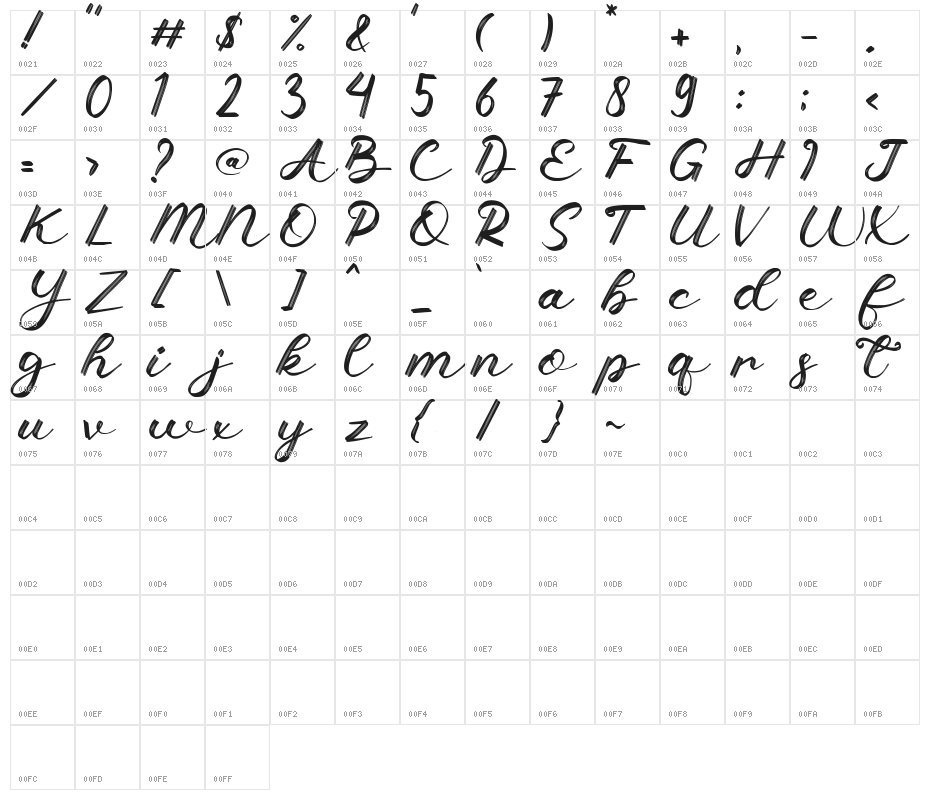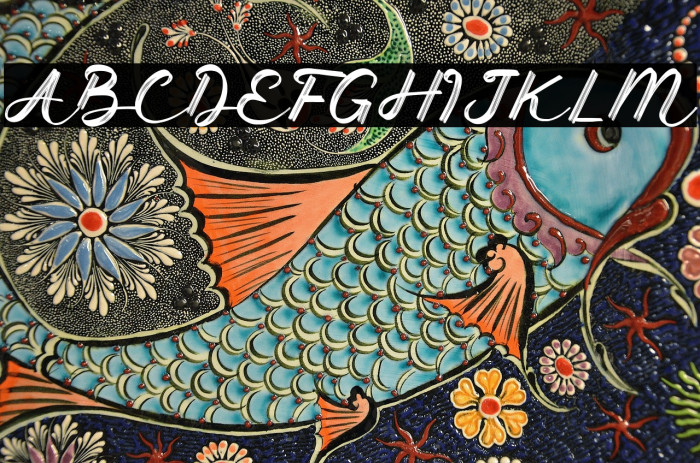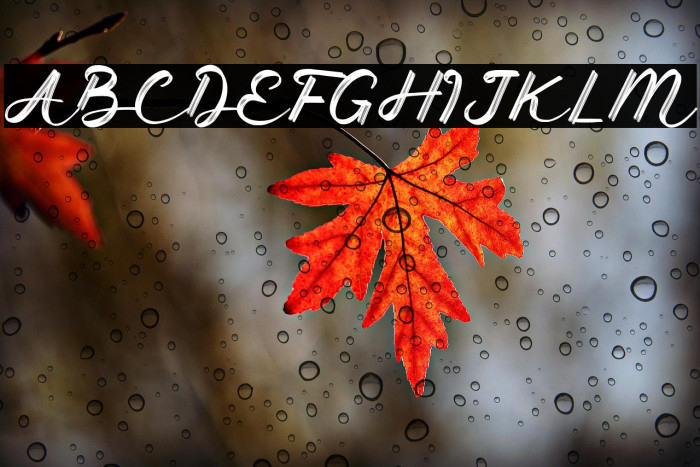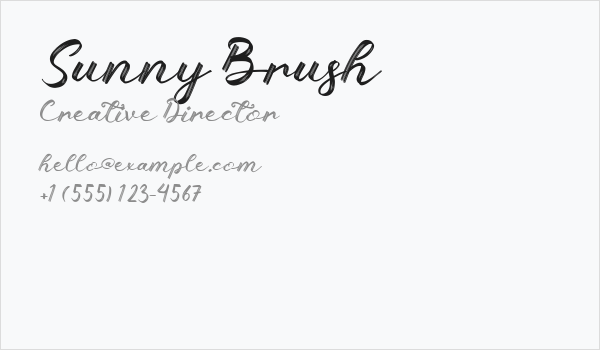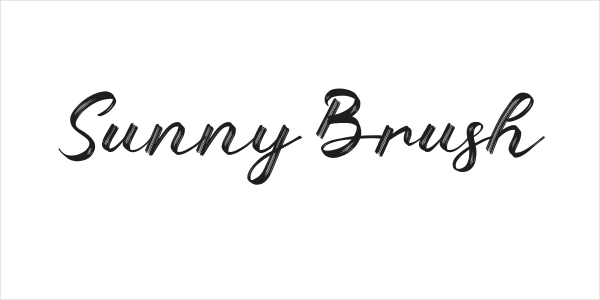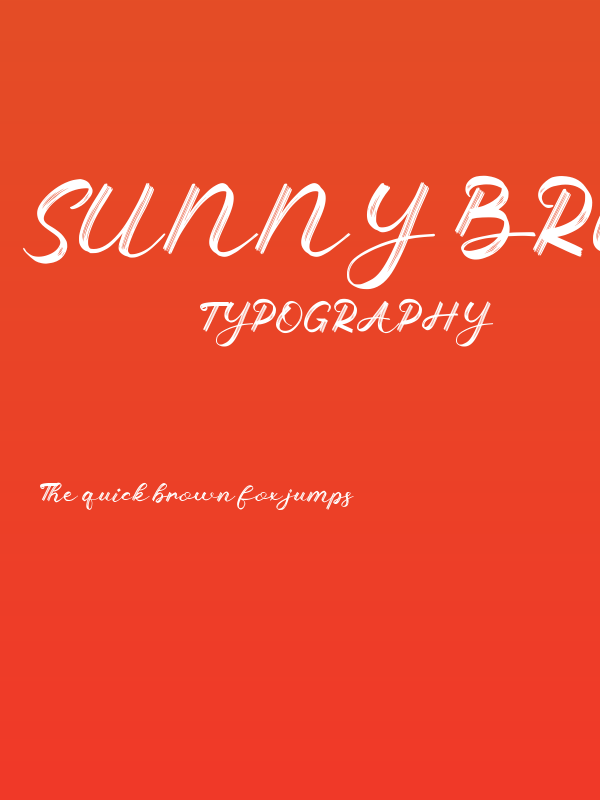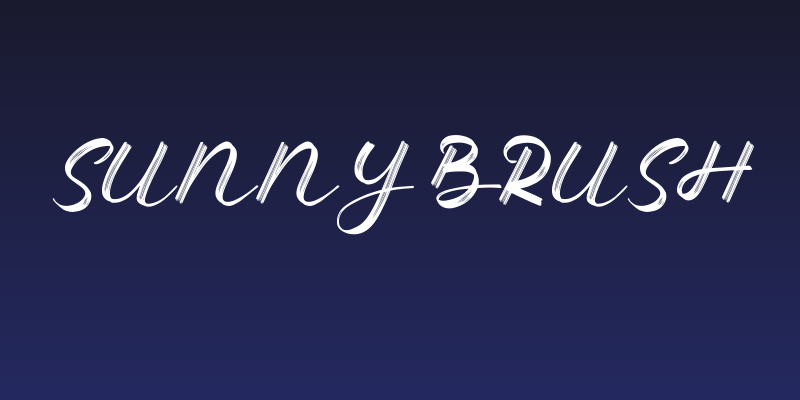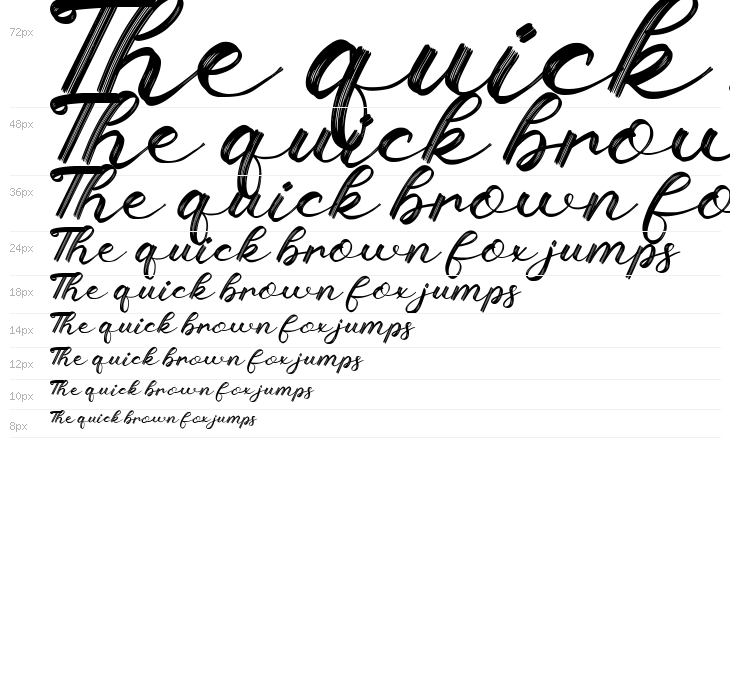
Sunny Brush Font
Sunny Brush Description
This font exudes a lively and energetic vibe, characterized by its brush script style that mimics the fluidity and spontaneity of hand-painted lettering. The strokes are bold and dynamic, with a natural flow that gives each character a sense of movement. The uppercase letters are slightly more structured, while the lowercase letters maintain a casual, freeform appearance. The numbers and special characters are consistent with the overall style, ensuring a cohesive look across all elements. This font is perfect for projects that require a personal touch, such as invitations, greeting cards, or branding materials that aim to convey creativity and warmth.